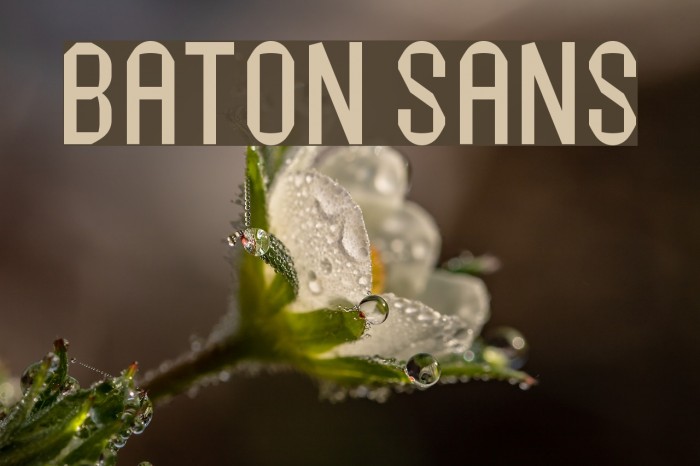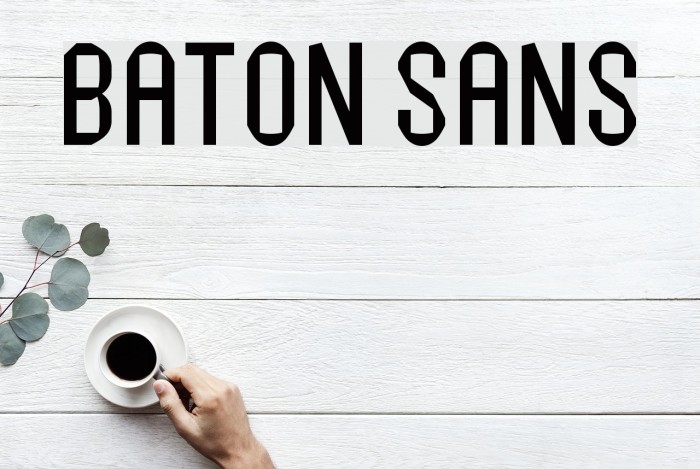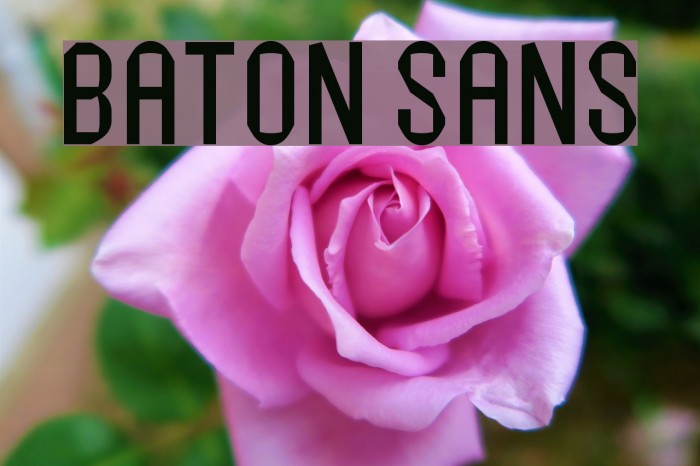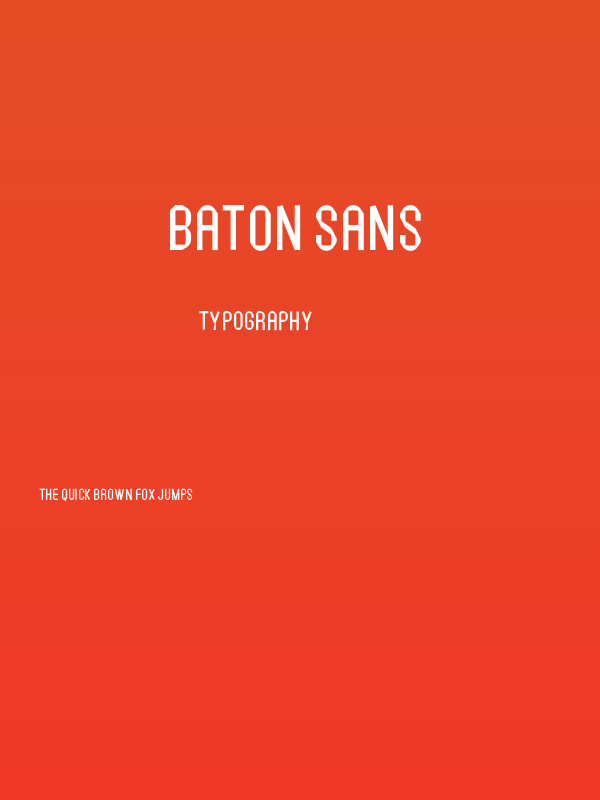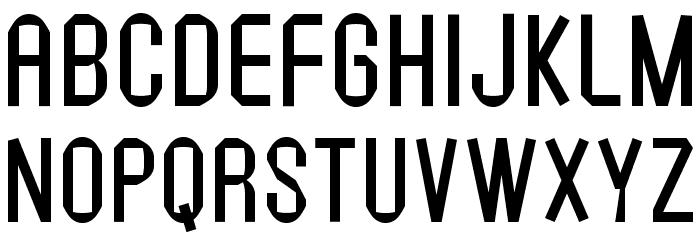
Baton Sans Font
Baton Sans Description
This font features a bold, geometric sans-serif style with a strong presence. The characters are constructed with clean, straight lines and sharp angles, giving it a modern and industrial feel. The uppercase letters are uniform in height, while the lowercase letters maintain a consistent x-height, ensuring readability. The numerals are equally robust, matching the overall aesthetic of the font. Special characters are designed to complement the primary character set, maintaining the same bold and structured appearance. The font's design is suitable for creating impactful headlines and titles, where clarity and strength are essential.
stephenflagg
| Use Case | Headlines, Logos, Signage |
| Proposed Projects | Ideal for branding, posters, signage, and any project requiring a strong, modern typeface. |